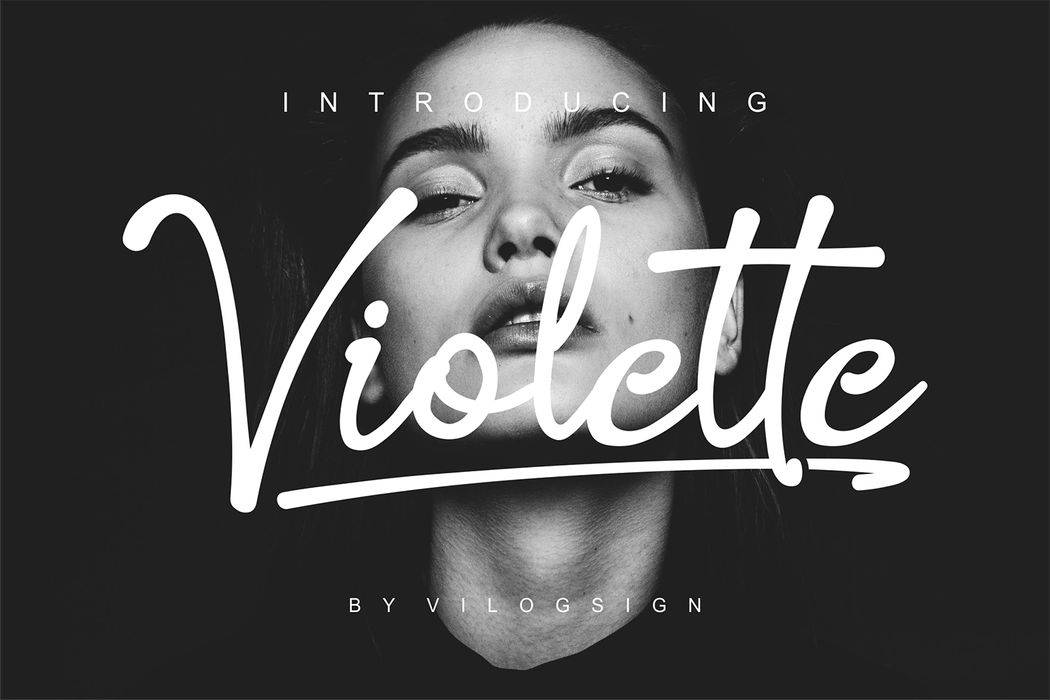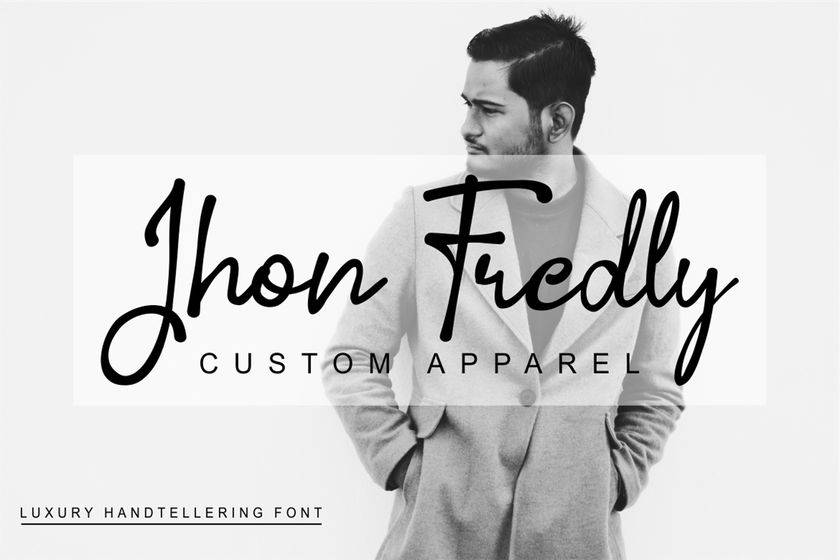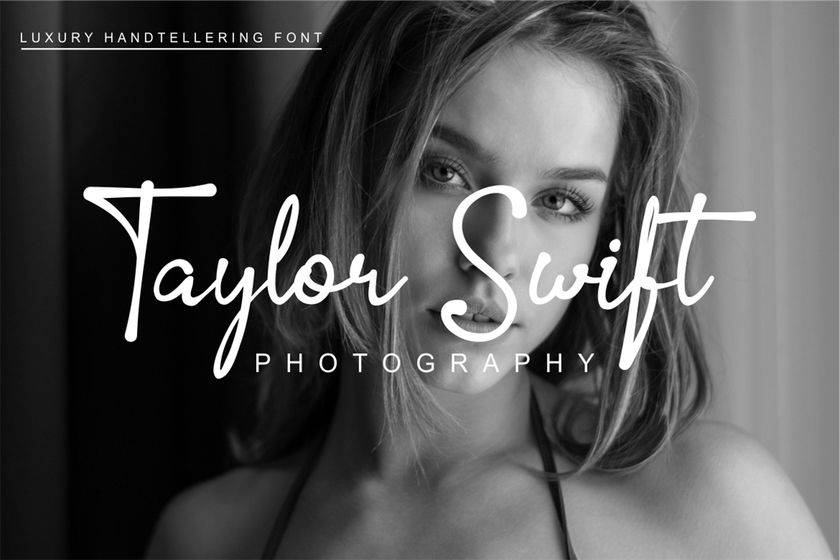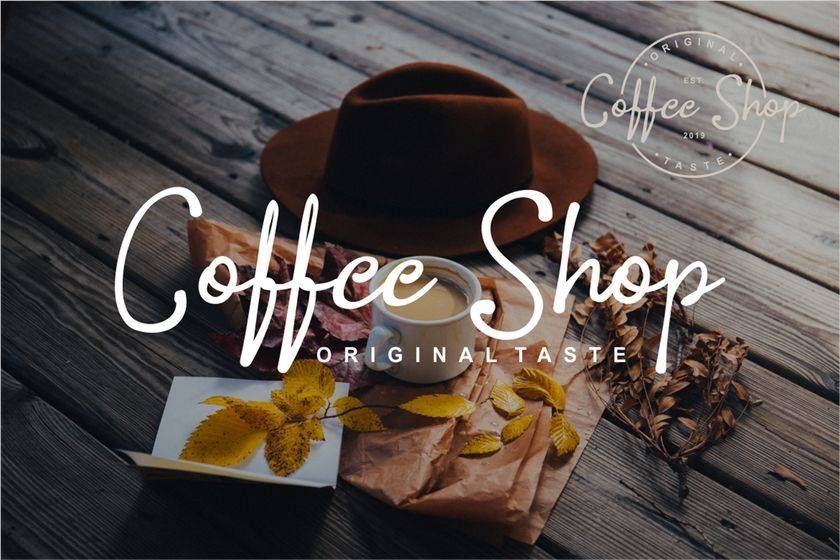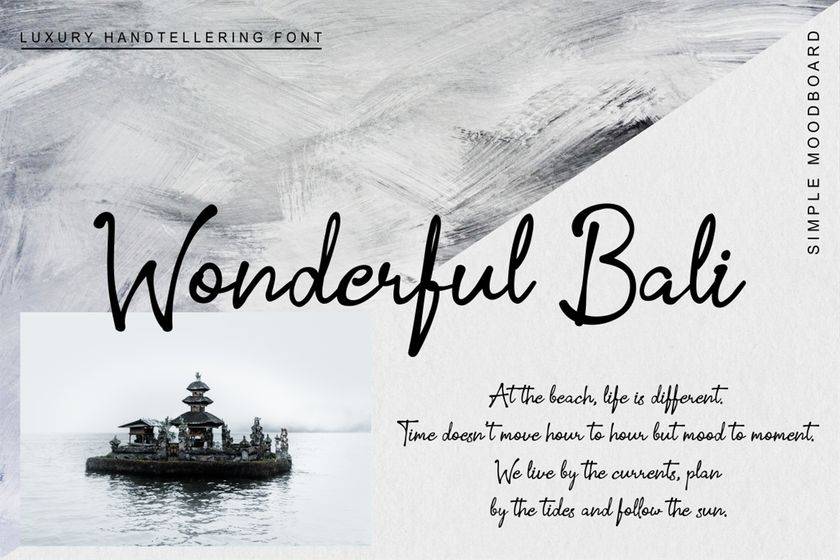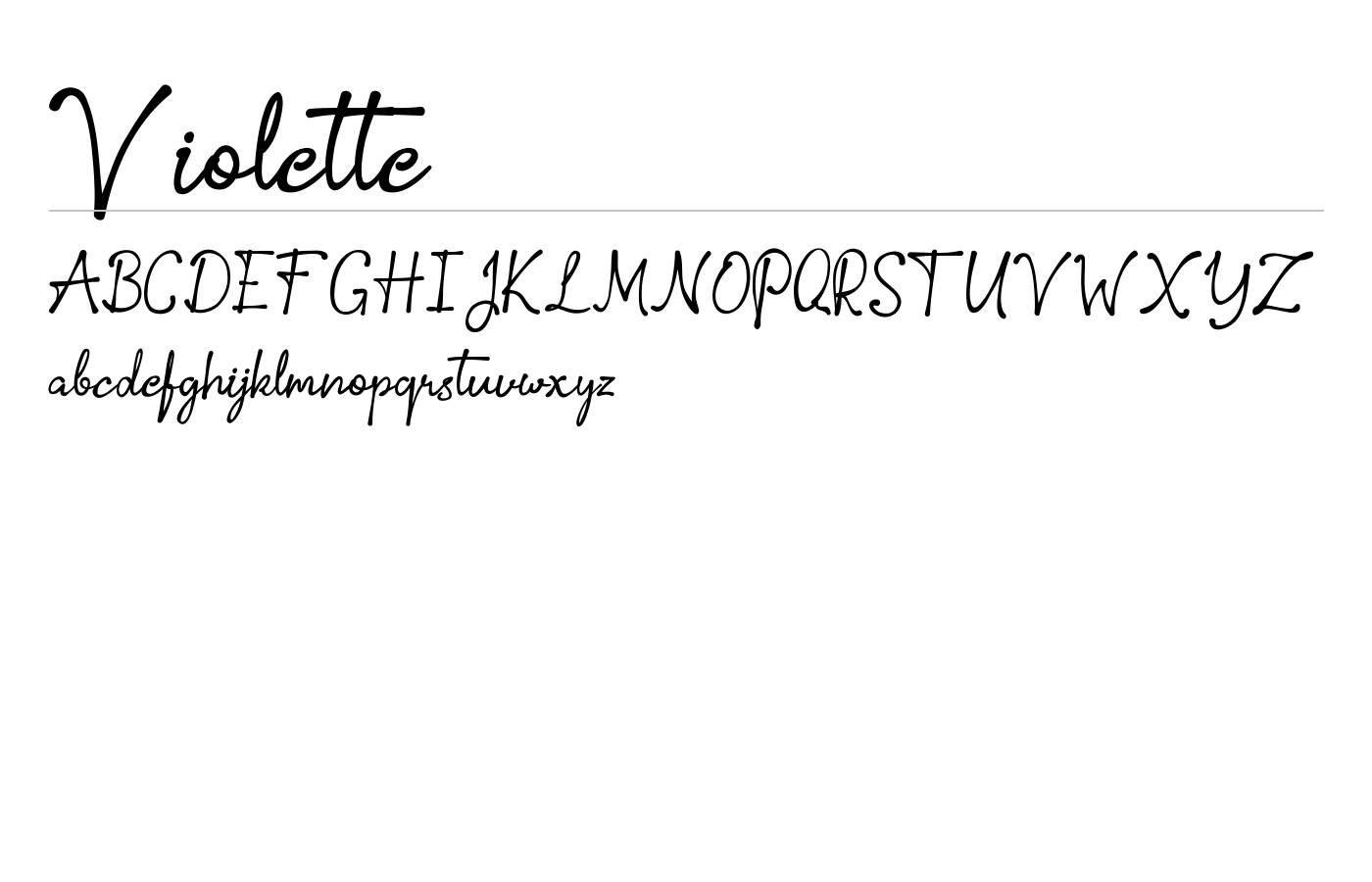
Violette is a lively handwritten script font that combines elegance with a casual charm. Its flowing letterforms and varied stroke widths bring a personal, artistic touch, making it perfect for creative projects, invitations, and branding that seek a warm, approachable feel. This font works great for headlines and logos where a fresh, friendly personality is desired.
Violette Font
About Violette Font
| Font family | Violette Font |
| Release date | 2019-02-06 |
| Designer | Vilogsign |